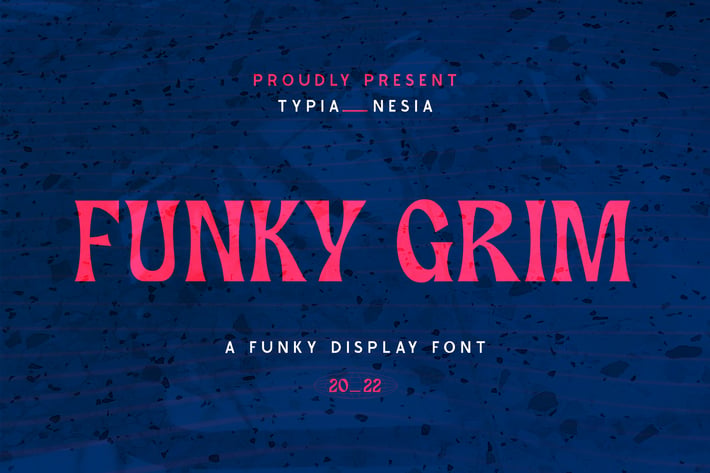
Funky Grim - Playful Pop Retro Horror Display Font
Funky Grim - Playful Pop Retro Spooky Horror Display Sans Serif Font
Suitable for any design needs : logo, branding, Playful advertising design, retro pop art design, music poster, animation or movie, logos, poster quote, kid / children toys branding, merchandise article design, comic book / novel cover Title, website / blog, card, and more.